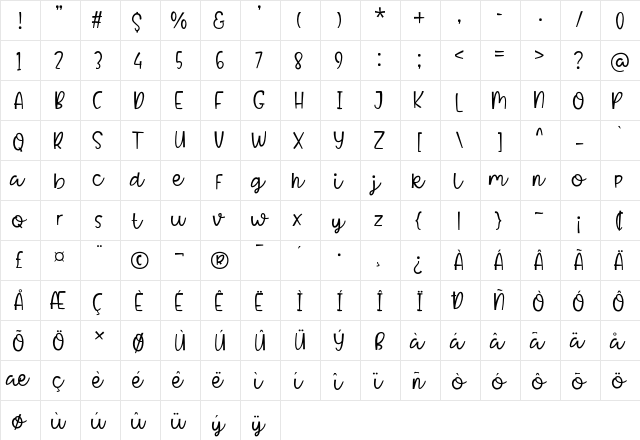
Epic Hello Regular
| Foundry | epiclinez |
| Designer | Aldy F S |
Design Context for Epic Hello Typeface
Epic Hello is a composed and adaptable typeface that performs quietly and consistently across a wide range of design contexts.